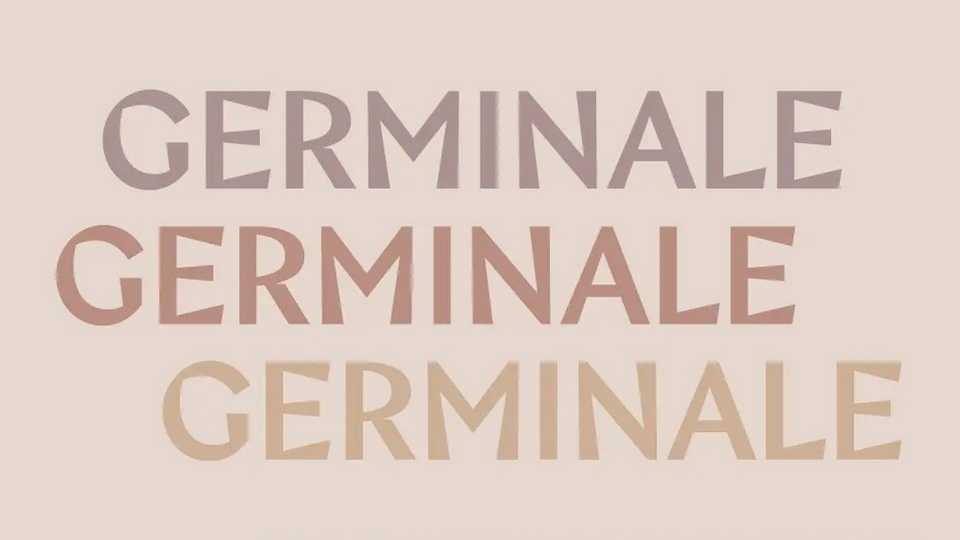
Download Germinale font, a sans serif typeface inspired by the opposition of the shapes that roses shelter, sharp shapes for the thorns and voluptuous curves for the petals. Germinale is an ideal character when it comes to dealing with subjects relating to nature, metamorphosis and well-being.
Designer: Quentin Barba